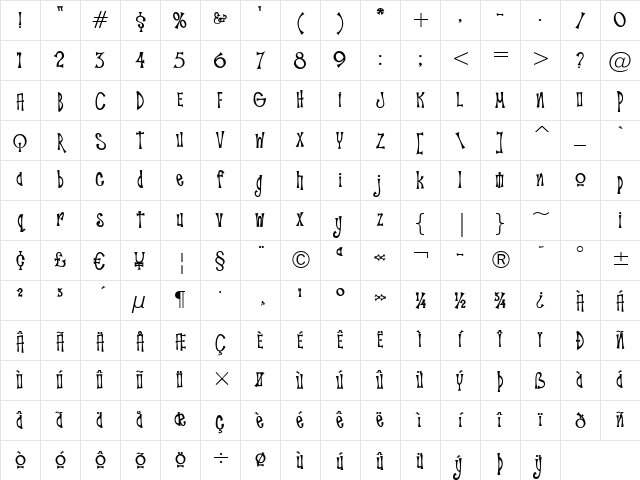
Troutkings BTN Condensed Regular Free Font
Troutkings BTN Condensed Regular
Complete Troutkings BTN Condensed Regular glyph index. Displaying only characters natively supported by Troutkings BTN Condensed Regular font.
Design Context for Troutkings BTN Condensed
Troutkings BTN Condensed is a composed and adaptable typeface that performs quietly and consistently across a wide range of design contexts. Its narrow stance lets it pack a punch even in space-constrained designs.